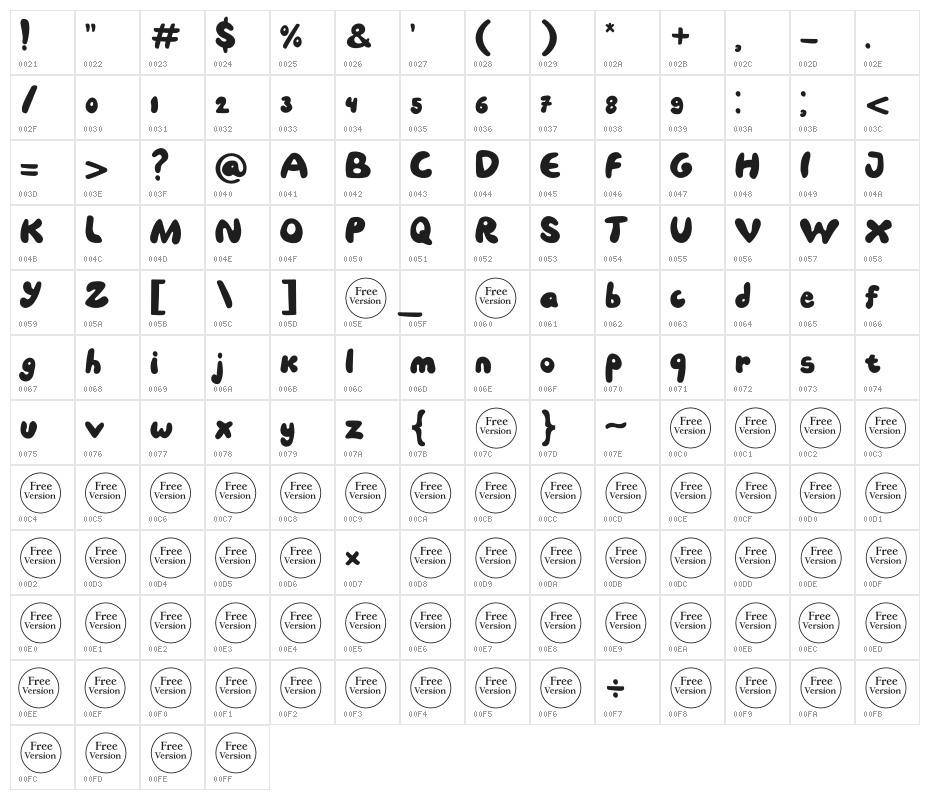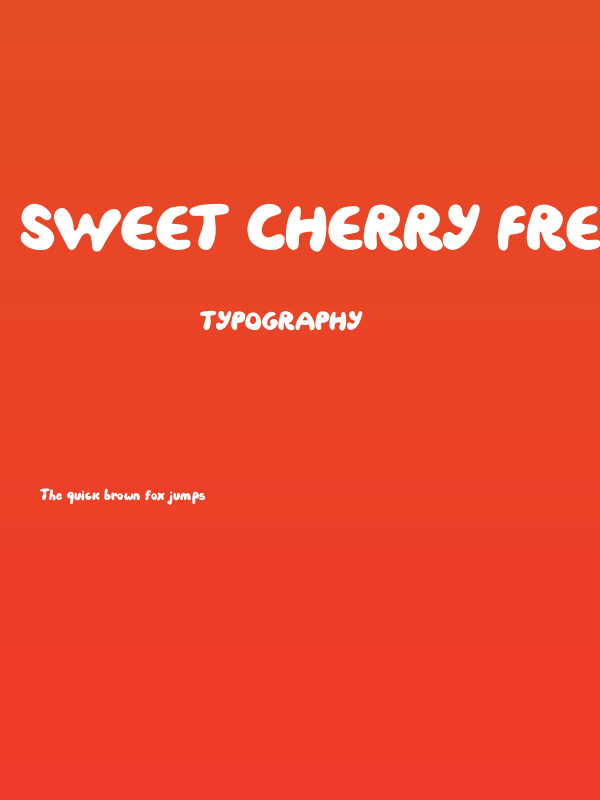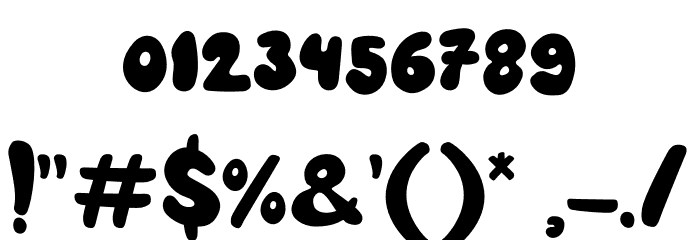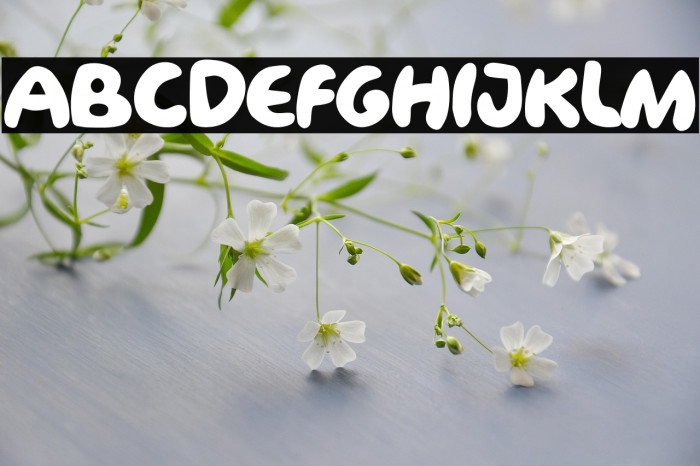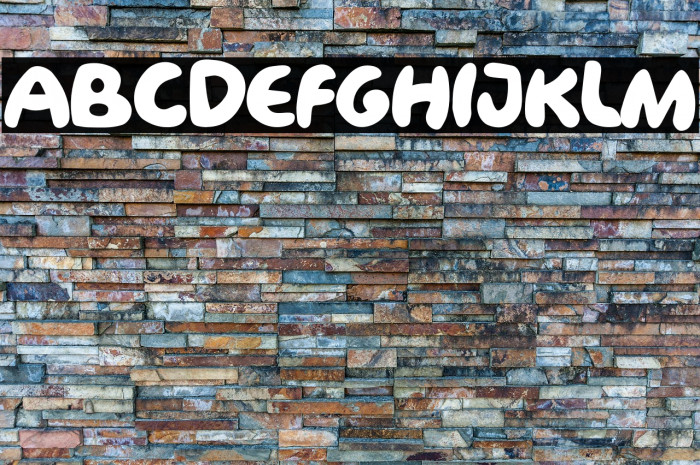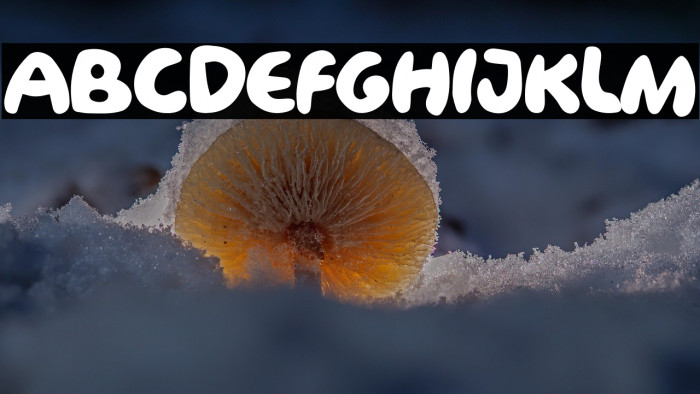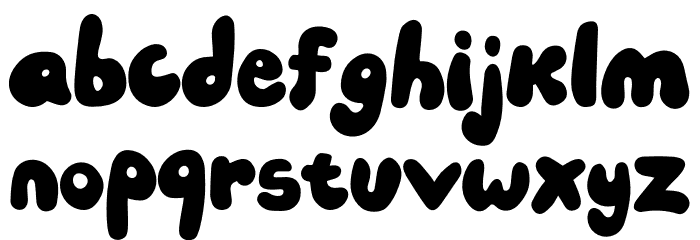
Sweet Cherry Free Font
Sweet Cherry Free Description
This playful and bold typeface features rounded, bubbly characters that exude a sense of fun and whimsy. The letters are thick and substantial, with a smooth, flowing style that makes each character appear almost like it's been drawn with a brush or marker. The font maintains a consistent weight throughout, giving it a cohesive look. Its informal and friendly appearance makes it ideal for projects that aim to convey a sense of joy and creativity. The characters are closely spaced, enhancing the compact and energetic feel of the typeface.
| Proposed Projects | Perfect for children's books, playful branding, party invitations, and creative posters. |